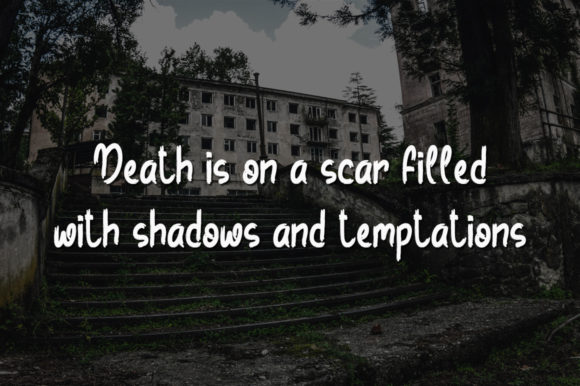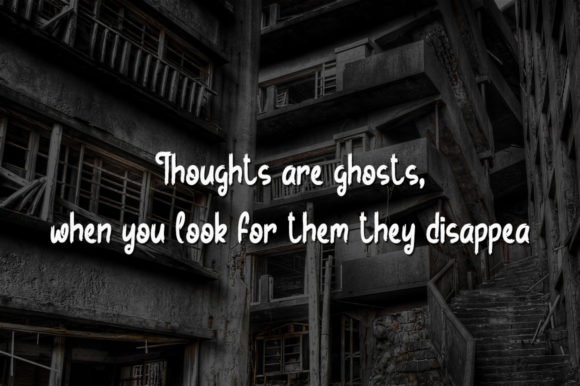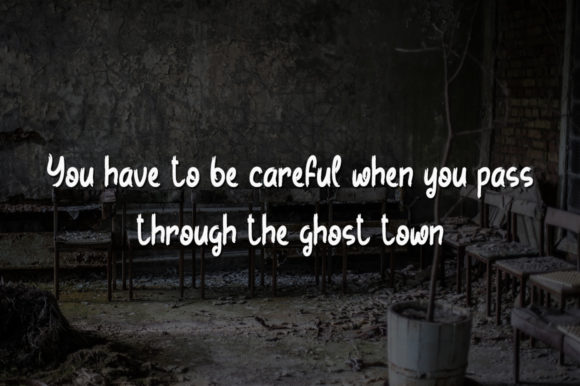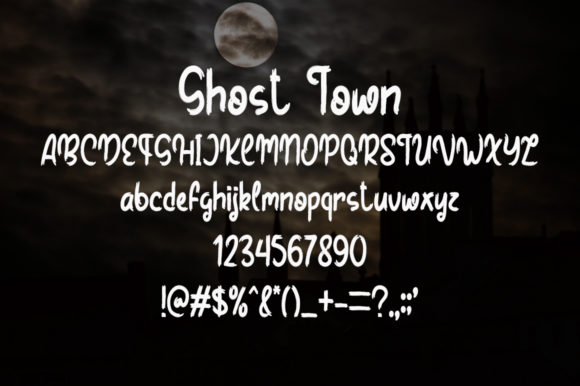
Unleash the Spooky Spirit with Ghost Town Font: A Creepy yet Captivating Handwritten Font
Are you a designer or crafter looking for a unique and eerie font to add a touch of spookiness to your Halloween-themed designs? Look no further than the Ghost Town Font, a simple yet effective brushed handwritten font that exudes a creepy vibe perfect for capturing the essence of the spookiest season.
What is Ghost Town Font?
Ghost Town Font is a carefully crafted, handwritten font that boasts a distinctive, brushed look, giving it a delightfully imperfect and organic feel. Its rustic charm and eerie undertones make it an ideal choice for designers and crafters seeking to create eye-catching and hauntingly beautiful designs for Halloween parties, invitations, decorations, and more.
Key Features of Ghost Town Font
- Simple yet Effective Design: Ghost Town Font features a clean and uncomplicated design that is both easy to read and visually striking.
- Brushed Handwritten Style: The font’s brushed, handwritten aesthetic lends it a unique, personal touch that sets it apart from more traditional fonts.
- Creepy yet Captivating: The font’s subtle imperfections and rustic charm evoke a sense of eeriness, making it perfect for Halloween-themed designs.
- Versatile: Ghost Town Font can be used for a wide range of design projects, from party invitations and decorations to social media graphics and more.
Why Choose Ghost Town Font for Your Halloween Designs?
With Ghost Town Font, you can add a touch of spooky sophistication to your Halloween designs. Its distinctive, brushed look and creepy vibe make it an excellent choice for:
- Halloween Party Invitations: Create eye-catching and hauntingly beautiful invitations that will set the tone for a spooktacular celebration.
- Decorations and Signage: Use Ghost Town Font to create eerie and effective decorations, such as tombstones, banners, and signs.
- Social Media Graphics: Add a touch of Halloween spirit to your social media graphics, such as Facebook posts, Instagram stories, and more.
- DIY Crafts: Incorporate Ghost Town Font into your DIY Halloween crafts, such as pumpkin carvings, ghostly garlands, and more.
Tips for Using Ghost Town Font Effectively
To get the most out of Ghost Town Font, consider the following tips:
- Experiment with Colors: Pair Ghost Town Font with bold, vibrant colors to create a striking contrast that will make your designs pop.
- Play with Texture: Combine Ghost Town Font with different textures, such as wood, stone, or distressed paper, to add depth and interest to your designs.
- Mix and Match Fonts: Pair Ghost Town Font with other fonts to create a unique and visually appealing typography.
Ghost Town Font is a versatile and captivating handwritten font that is sure to add a touch of spookiness to your Halloween designs. With its simple yet effective design, brushed handwritten style, and creepy vibe, it’s the perfect choice for designers and crafters looking to create eye-catching and hauntingly beautiful designs. So why wait? Unleash the spooky spirit with Ghost Town Font and make your Halloween designs unforgettable!